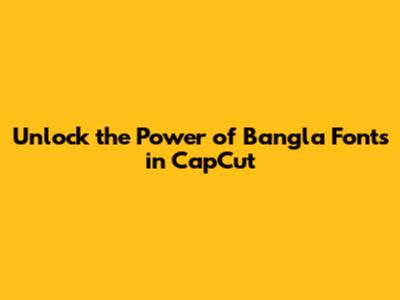
Hey guys! Ever wanted to add that perfect Bengali touch to your CapCut videos but found yourself scratching your head about where to find the right Bangla font for CapCut generator? You're not alone! CapCut is an awesome, user-friendly video editing app, but sometimes finding specific language fonts can feel like a treasure hunt. Today, we're going to dive deep into how you can easily integrate beautiful Bangla fonts into your CapCut projects, making your videos stand out and truly connect with your audience. We'll cover everything from finding the fonts themselves to getting them onto your phone and into the app, so stick around!
Tips for Readability and Design
Creating visually appealing text isn't just about picking a cool Bangla font for CapCut generator; it's also about how you use it. Readability is king, especially in video. Since your audience is often consuming content on smaller screens and might be distracted, your Bangla text needs to be crystal clear. Choose fonts that have good spacing between letters (kerning) and lines (leading). Avoid overly decorative or condensed fonts if your primary goal is clear communication. Contrast is your best friend here. Make sure your text color stands out significantly from the background video. A common mistake is using a light-colored text on a bright background, or dark text on a dark background, making it hard to read. Use outlines, shadows, or background boxes for your text to improve contrast if needed. CapCut offers these tools! Experiment with them. For instance, a subtle drop shadow can lift the text off the background, and a semi-transparent background panel can make text pop on busy scenes. Think about the flow of your video. Where does the text appear? How long does it stay on screen? Ensure text overlays don't linger too long (making viewers impatient) or disappear too quickly (making them miss the information). Animate your text entry and exit subtly. Overly flashy animations can be distracting, but a smooth fade-in or slide-in can look professional and guide the viewer's eye. Keep text concise. Long blocks of text are generally hard to read in videos. Break down information into smaller, digestible chunks if possible. Use bullet points or short phrases. Finally, always preview your video on different devices – your phone, a tablet, maybe even a computer screen. What looks good on your high-res phone screen might look different on a smaller, lower-resolution display. This final check ensures your beautiful Bangla text is accessible and looks great for everyone.
Conclusion: Elevate Your Videos with Bangla Fonts
So there you have it, folks! Adding Bangla fonts for CapCut generator doesn't have to be a headache. By understanding where to find quality fonts, how to install them on your device, and the best ways to utilize them within CapCut, you can significantly elevate the visual appeal and communicative power of your videos. Remember the key takeaways: prioritize readability and contrast, experiment with CapCut's text editing tools, and always preview your work. Whether you're creating content for social media, personal projects, or even professional work, using authentic and well-designed Bangla fonts will make your videos more engaging, culturally relevant, and impactful. Go forth, get creative, and let your Bangla text shine! Happy editing!